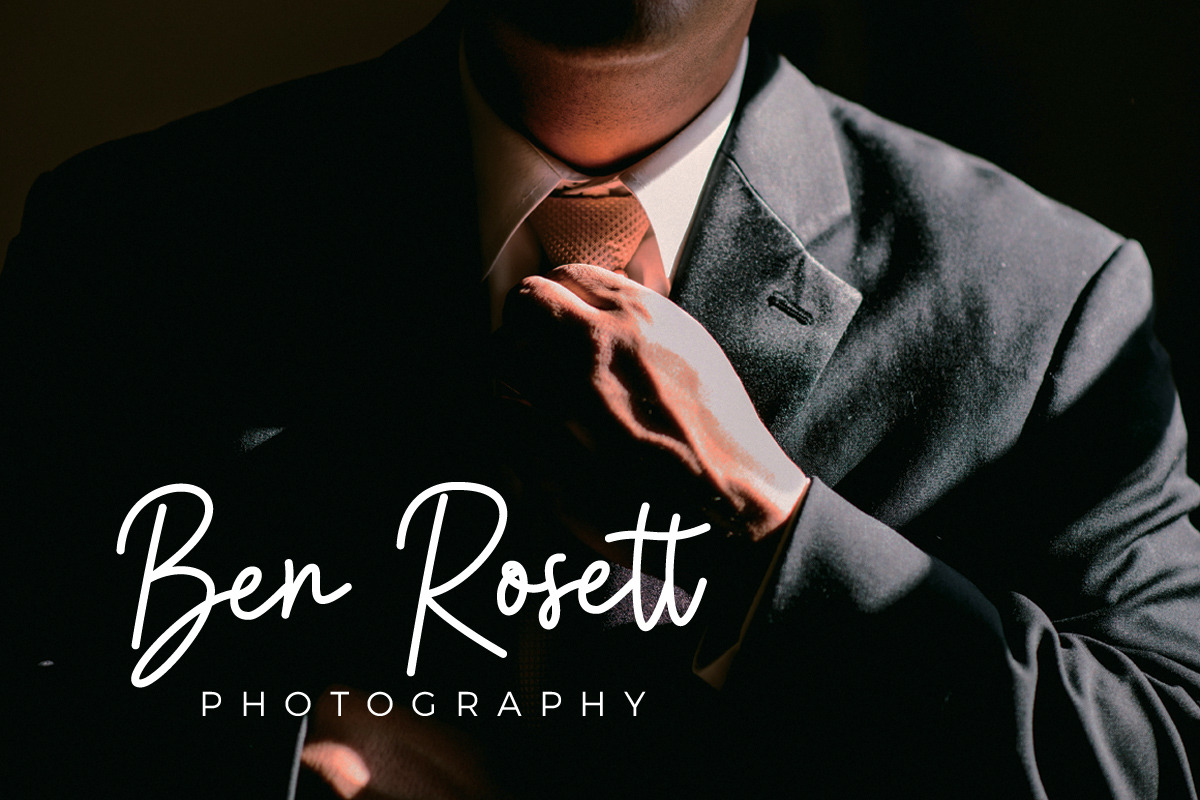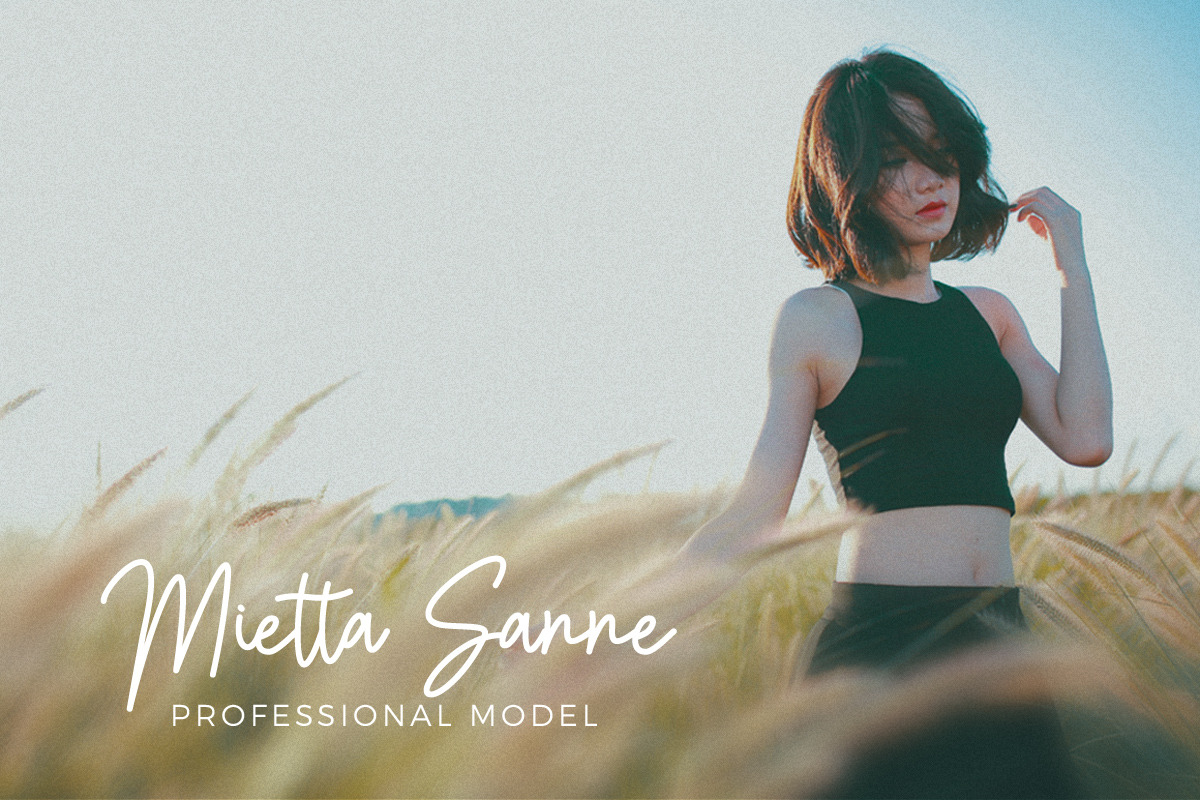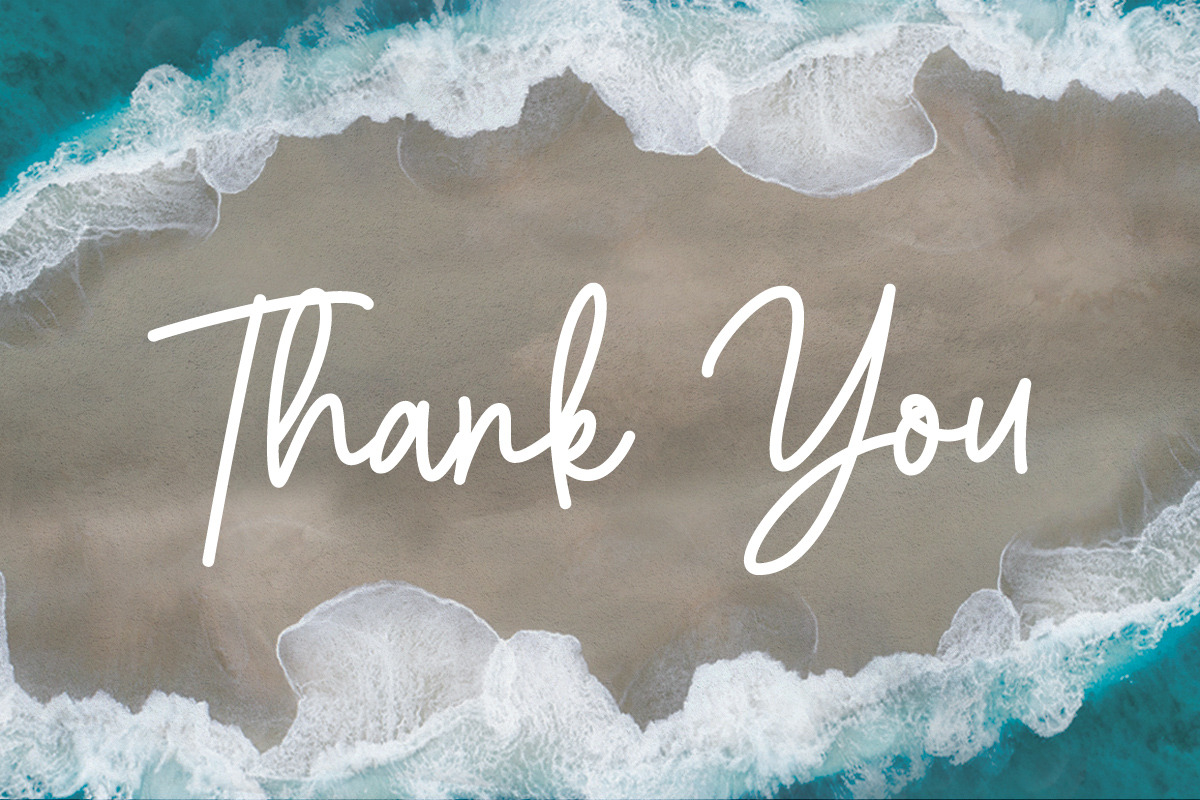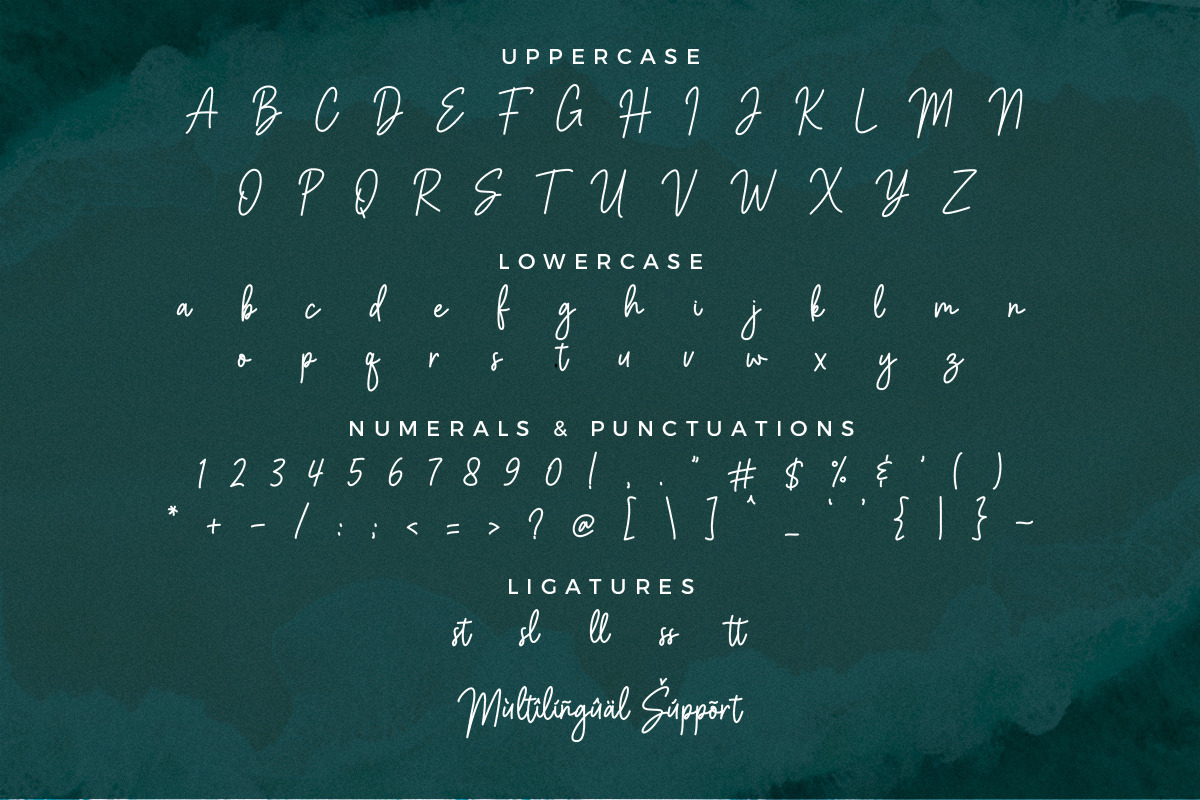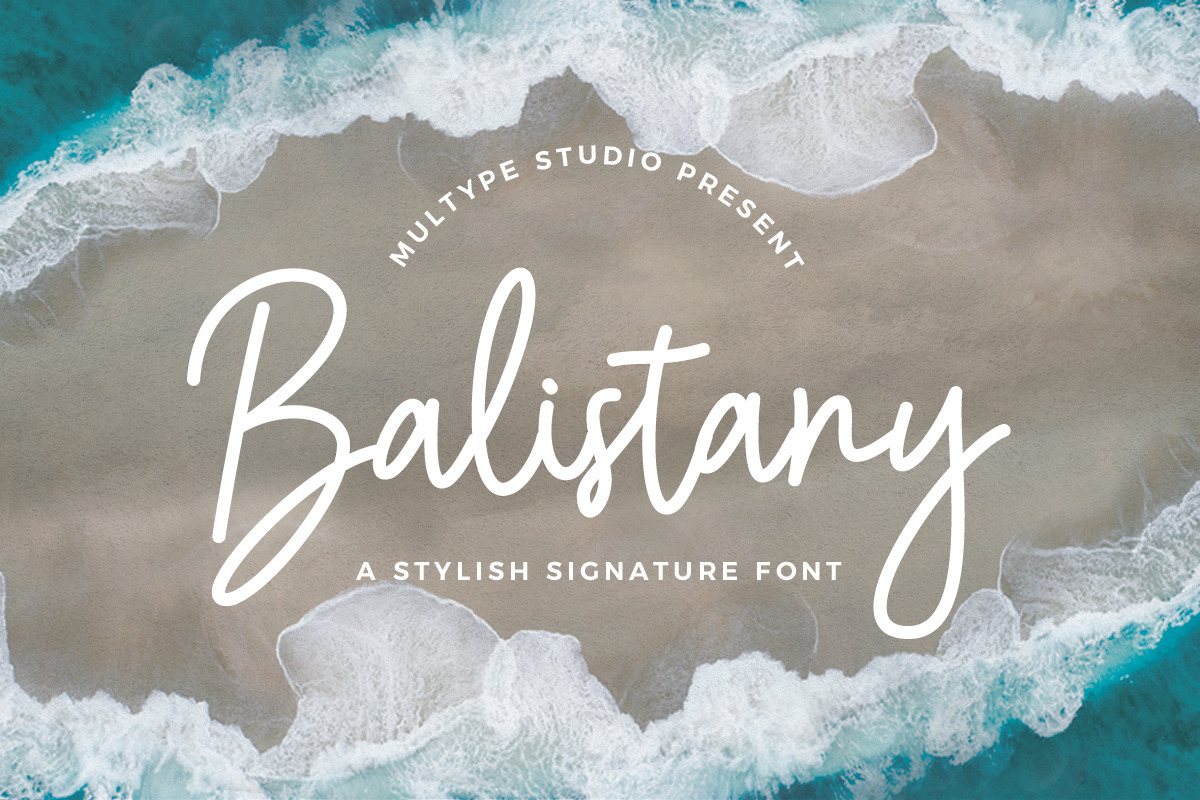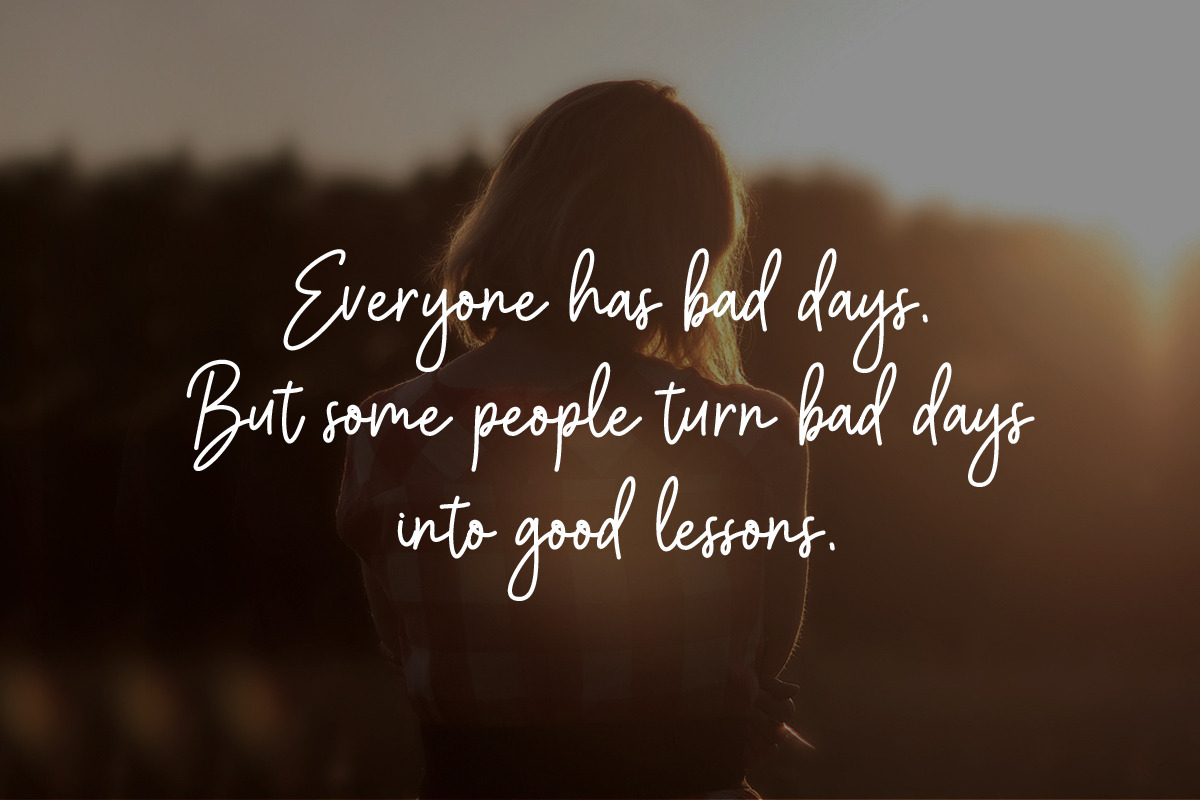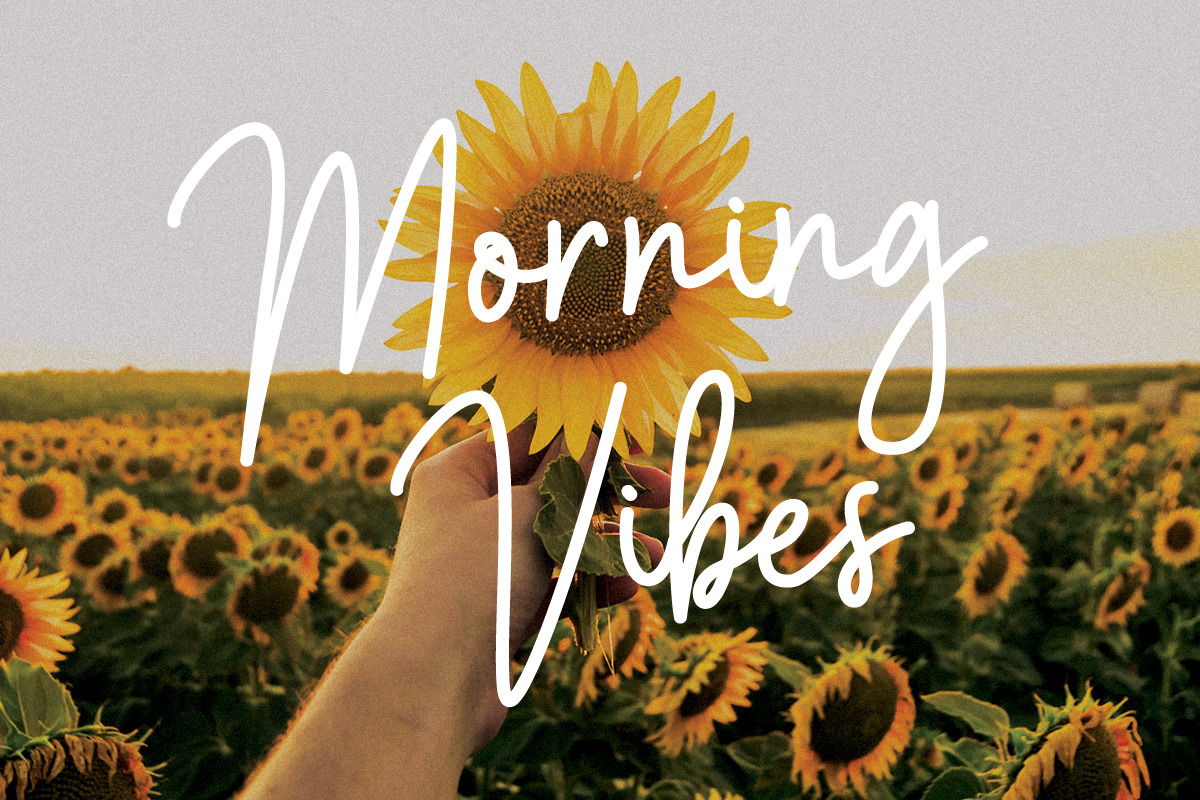
Balistany Signature Font
Balistany is a monoline stylish signature font perfect for any awesome projects that need handwriting taste.
Features : uppercase, lowercase, symbol, number, ligature, and also support multi language.
Balistany is perfect for photography, watermark, social media posts, advertisements, logos & branding, invitation, product designs, label, stationery, wedding designs, product packaging, special events or anything that need handwriting taste.